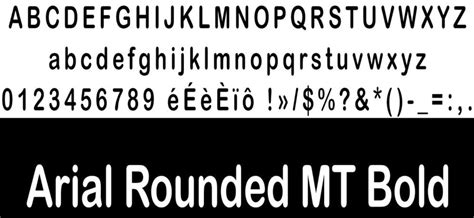
Arial Rounded MT Bold font
Arial Rounded Bold Font. Web arial® rounded bold is a sans serif, grotesque font family with 453 characters and 453 opentype features.
Web arial® rounded bold is a sans serif, grotesque font family with 453 characters and 453 opentype features.
Web arial® rounded bold is a sans serif, grotesque font family with 453 characters and 453 opentype features. Web arial® rounded bold is a sans serif, grotesque font family with 453 characters and 453 opentype features.